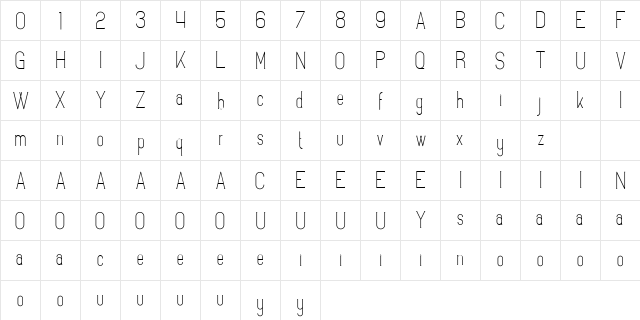
Varna Regular
Design Context for Varna Typeface
Varna takes a measured approach to typography — its balanced proportions and neutral character make it a reliable workhorse for both digital and print work.